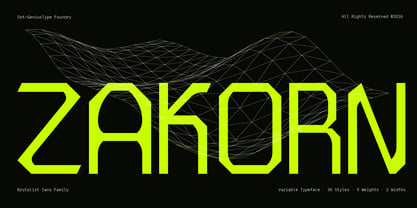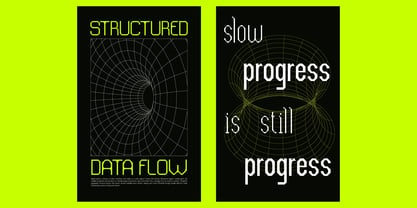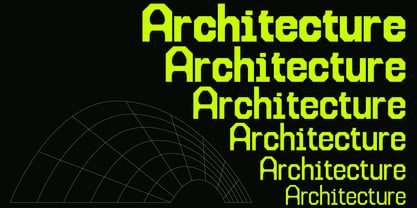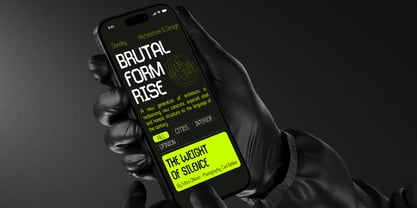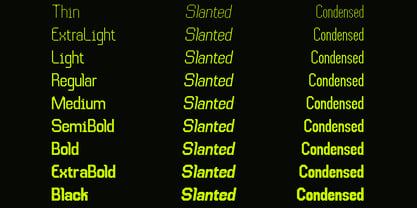
Dg Zakorn
by DG Typeworks Studio
The Dg Zakorn Font Family was designed by Asrul Yusuf and published by DG Typeworks Studio. Dg Zakorn contains 36 styles and family package options. More about this family
Zakorn is a brutalist sans-serif superfamily built on a foundation of geometric precision and structural uncompromise. Every letterform is constructed from angular strokes, sharp diagonal cuts, and terminals that reject softness in favor of industrial authority. The result is a typeface that commands attention before a single word is read. The family spans 36 styles across four distinct subfamilies: Normal (9 weights), Condensed (9 weights), Slanted (9 weights), and Condensed Slanted (9 weights). From Thin to Black, each weight maintains the DNA of the design — the cuts remain sharp, the proportions remain deliberate, the character remains uncompromised. Designed for: Brand identities demanding immediate visual authority. Editorial headlines where impact is non-negotiable. Wayfinding and signage systems requiring maximum legibility at scale. Screen interfaces, event graphics, poster design, and packaging where the font must carry the entire visual weight of the message. Technical features: Full Latin Extended character set (233+ glyphs per style), three variable axes (Weight, Width, Slant), OpenType features including tabular figures and case-sensitive forms.
Designers: Asrul Yusuf
Foundry: DG Typeworks Studio